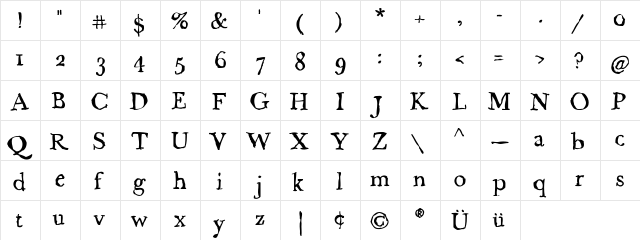
Caslame Roman Font Preview
Caslame Roman
Caslame Roman Font Details
| Foundry | Michael Tension |
Design Context for Caslame Typeface
Caslame is a composed and adaptable typeface that performs quietly and consistently across a wide range of design contexts.